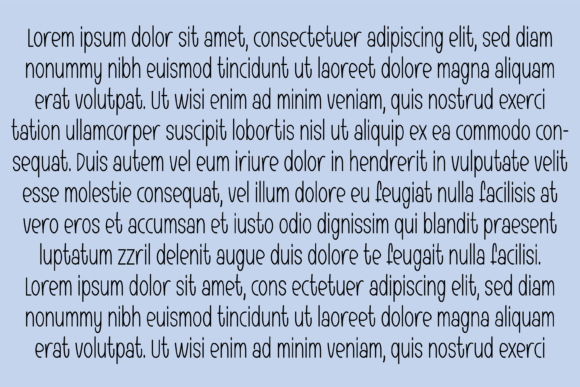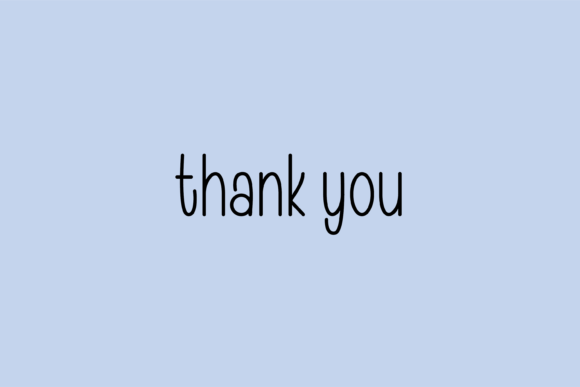
Introducing Arduin Font: The Perfect Handwritten Companion for Your Design Projects
Are you on the lookout for a font that can add a touch of warmth and personality to your designs? Look no further than Arduin Font, a simple yet friendly handwritten typeface that’s sure to brighten up your projects. With its whimsical and slightly quirky charm, Arduin Font is the perfect addition to any designer’s toolkit.
The Characteristics of Arduin Font
Arduin Font boasts a unique blend of simplicity and elegance, making it an excellent choice for a wide range of design applications. Its handwritten nature gives it a personal and approachable feel, while its clean lines and subtle curves ensure that it remains highly legible. Whether you’re working on a logo, a wedding invitation, or a magazine spread, Arduin Font is sure to make your designs stand out.
What Makes Arduin Font So Versatile?
One of the key benefits of Arduin Font is its incredible versatility. This typeface can be used confidently in a variety of design contexts, from formal events like weddings and galas to more playful applications like advertisements and social media graphics. Its friendly and approachable vibe makes it an excellent choice for brands looking to establish a warm and welcoming tone.
Some of the design applications where Arduin Font truly shines include:
- Logos: Arduin Font’s unique blend of simplicity and elegance makes it an excellent choice for logos that need to be both memorable and legible.
- Wedding Invitations: The font’s whimsical and romantic nature makes it perfect for wedding invitations, save-the-dates, and other wedding stationery.
- Quotes and Advertisements: Arduin Font’s friendly and approachable vibe makes it an excellent choice for quotes and advertisements that need to grab attention and convey a sense of warmth.
- Print and Magazines: The font’s clean lines and subtle curves make it highly legible in print, making it an excellent choice for magazines, brochures, and other print materials.
Why Designers and Crafters Love Arduin Font
So why do designers and crafters love Arduin Font so much? For starters, its unique blend of simplicity and elegance makes it a standout in any design context. Additionally, its friendly and approachable vibe makes it an excellent choice for brands looking to establish a warm and welcoming tone.
But perhaps the biggest benefit of Arduin Font is its ability to add a touch of personality to any design. Whether you’re working on a logo, a wedding invitation, or a magazine spread, Arduin Font is sure to bring a smile to your clients’ faces and leave a lasting impression on your audience.
How to Use Arduin Font in Your Designs